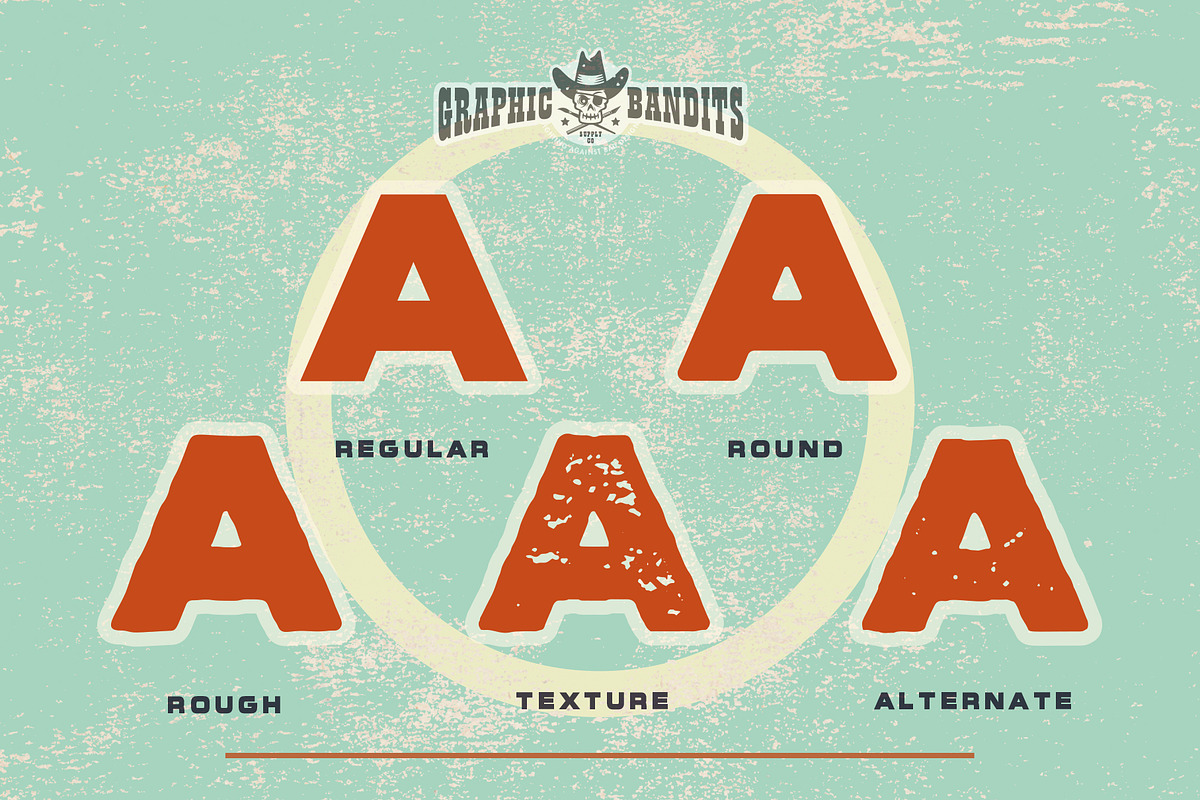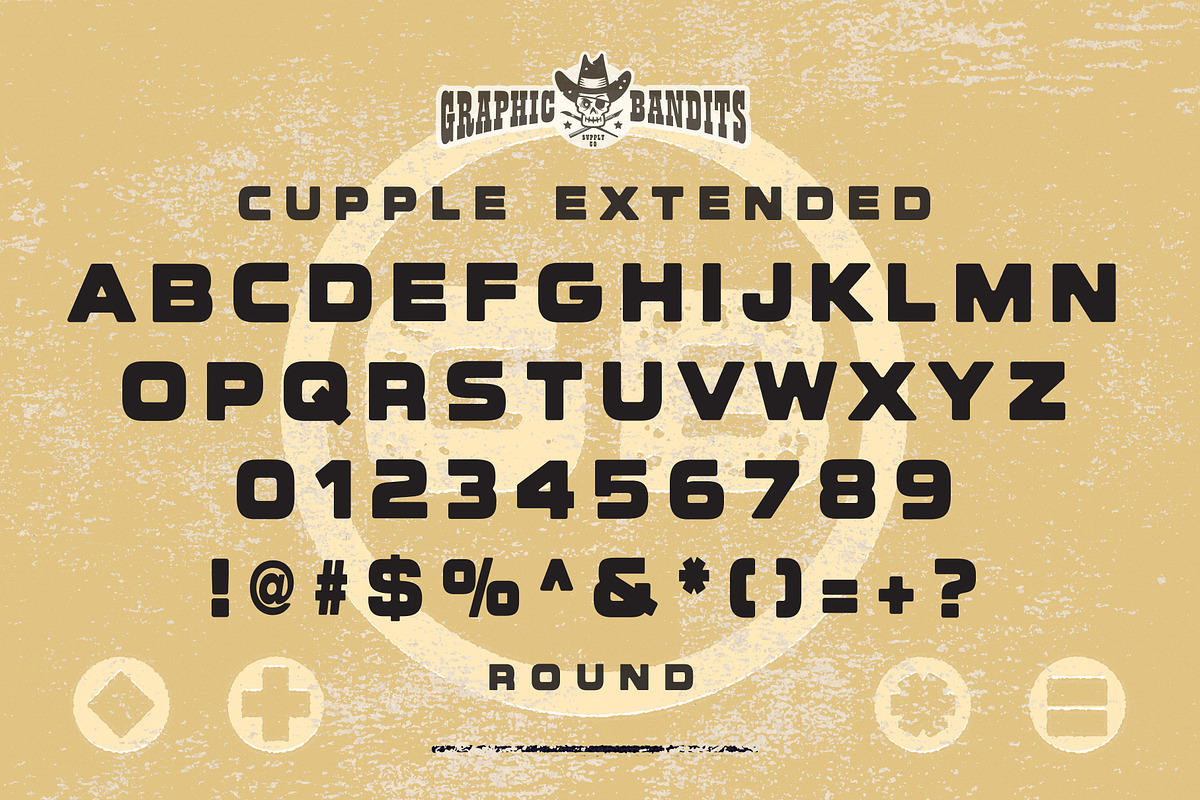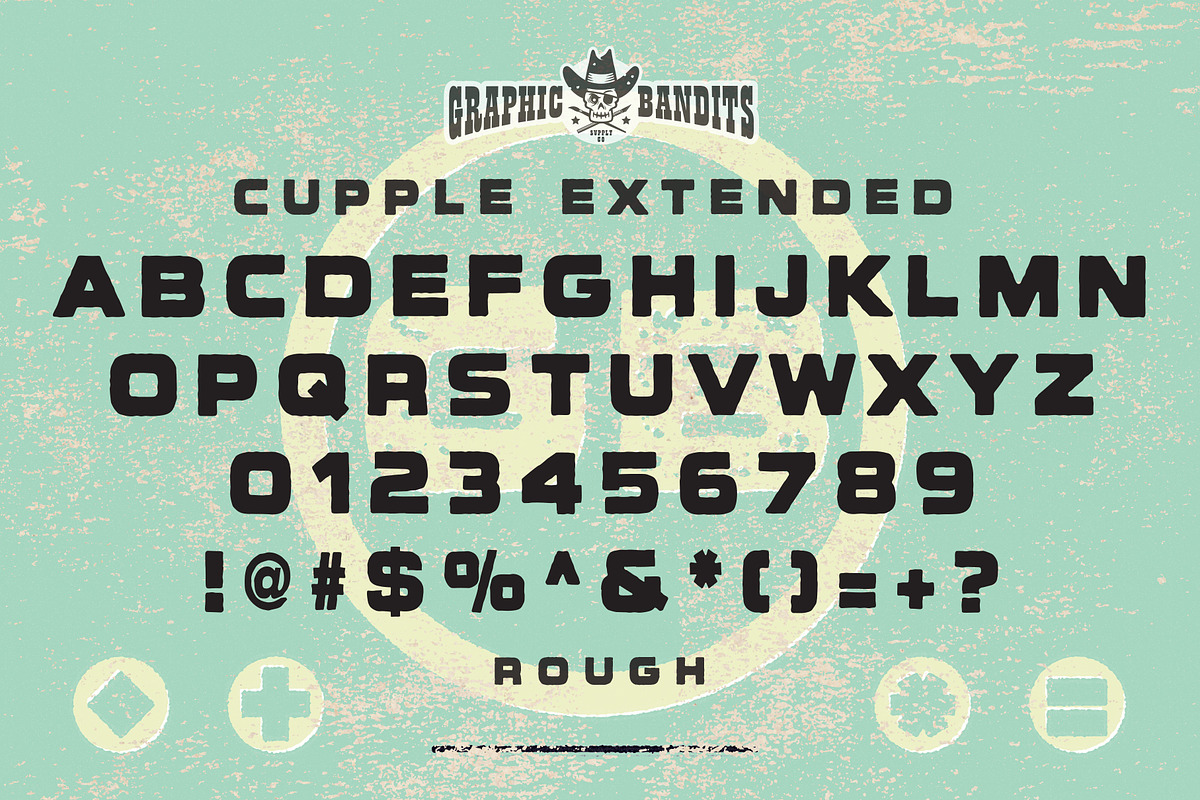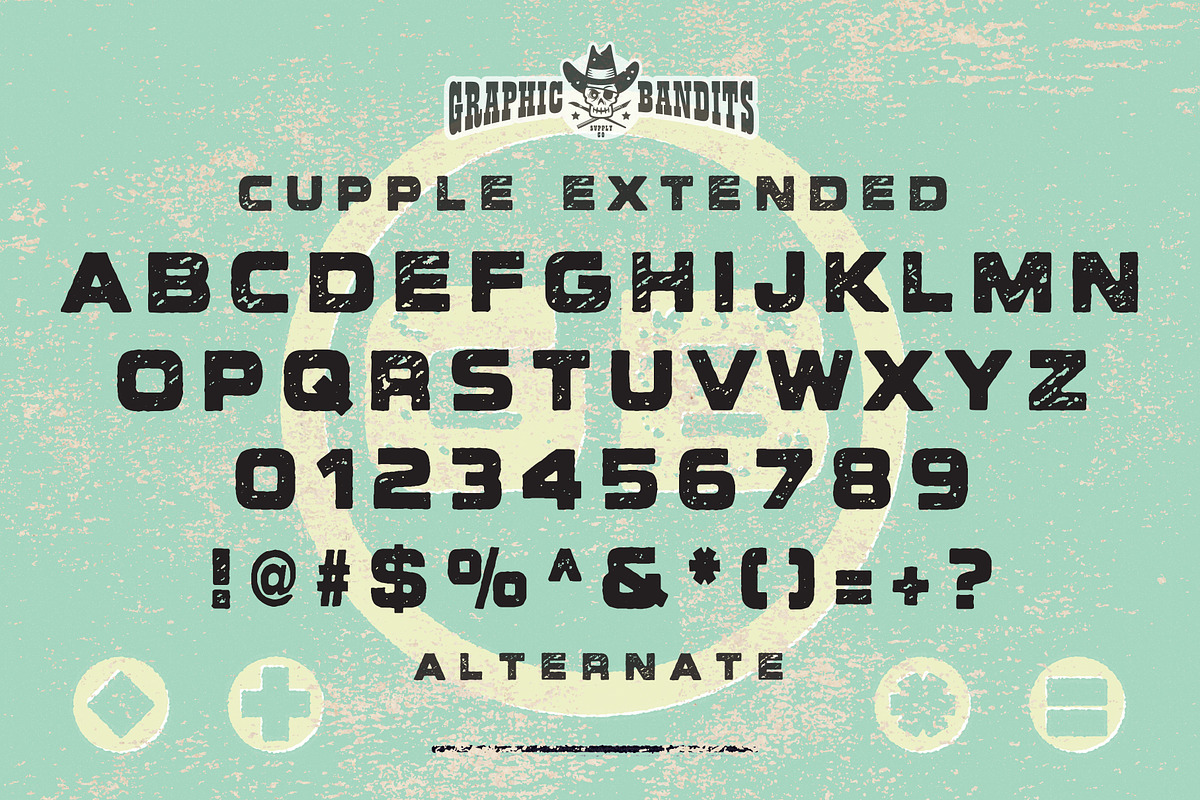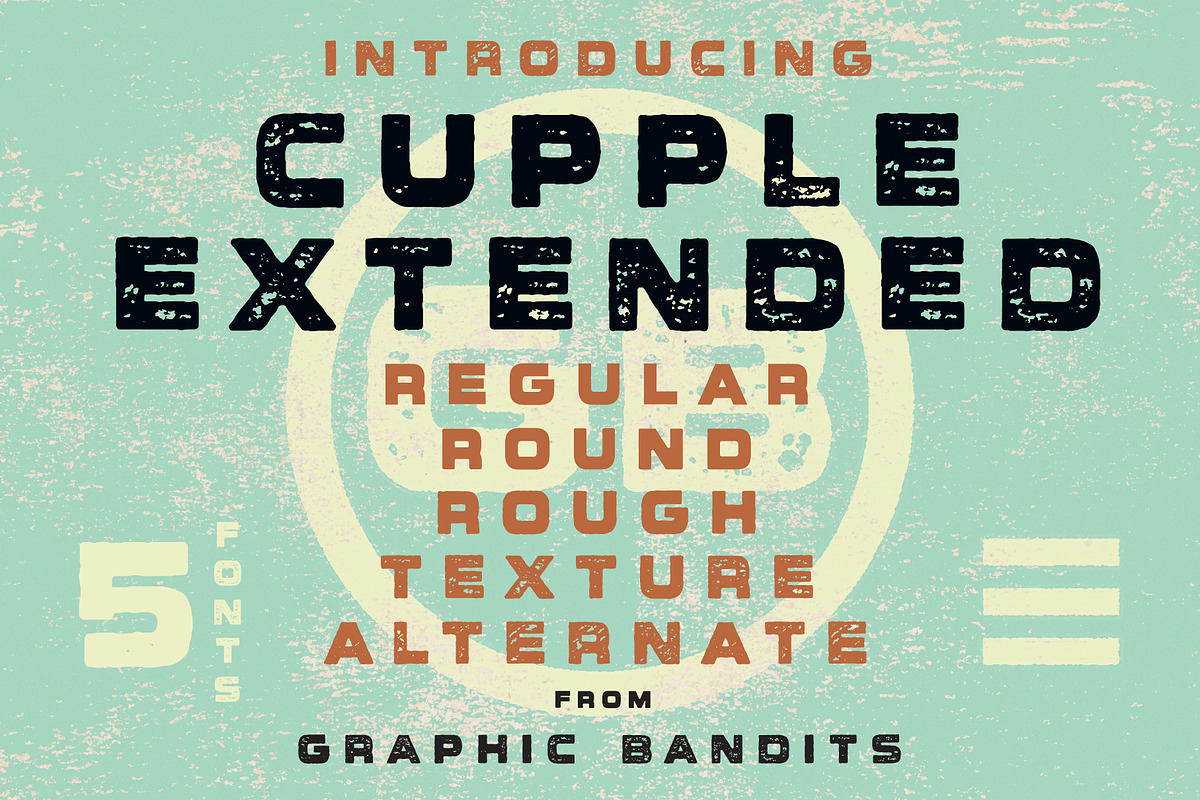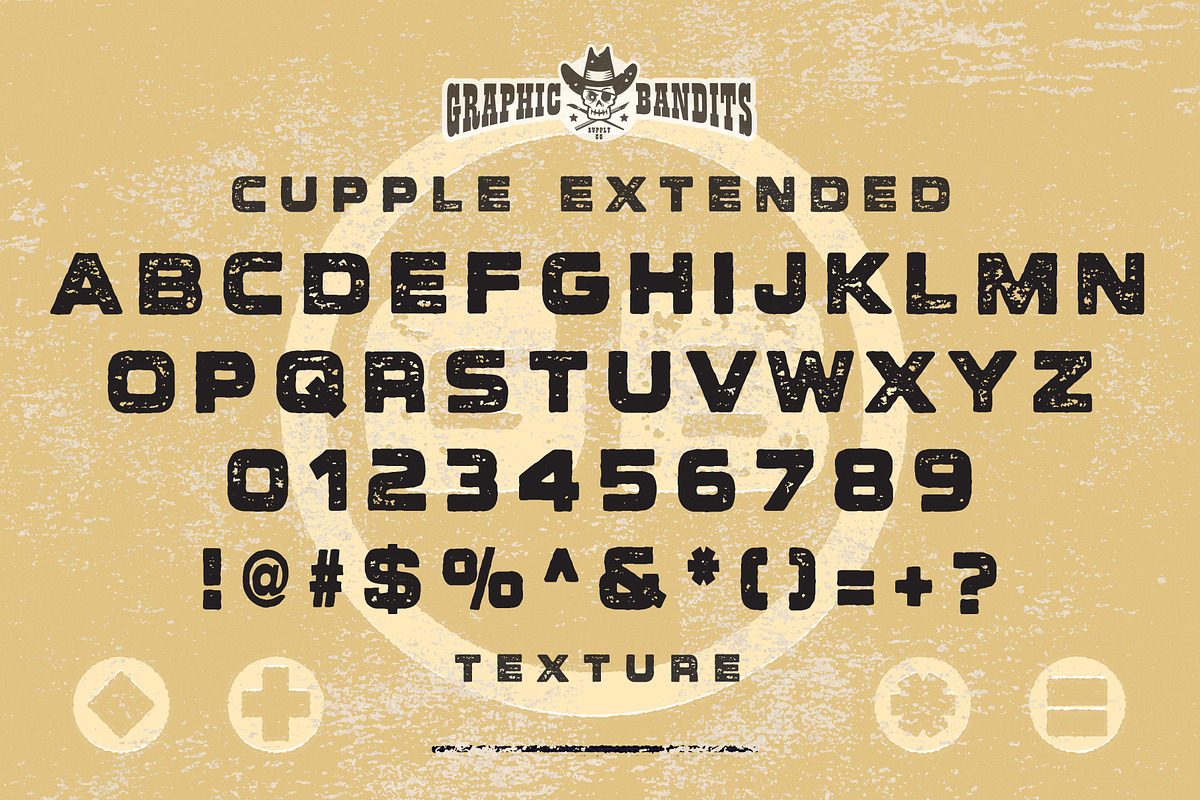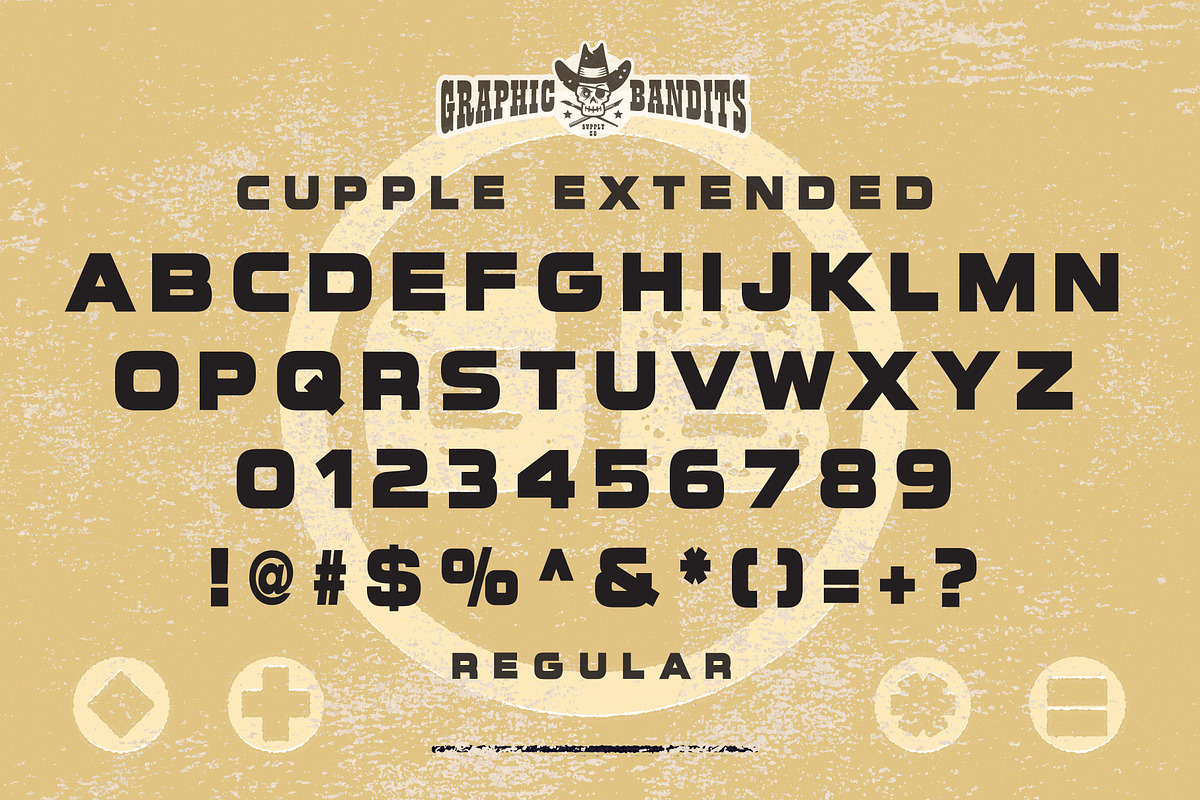
Cupple Extended 5 Font Family
The inspiration for this typeface came from a vintage label for Fruit Jar Rings. This is a very versatile font family. It can be used in vintage or contemporary designs. Works great on posters, signage, shirts, or any design project that calls for a bold extended font!
- Cupple Extend Regular
- Cupple Extend Rough
- Cupple Extend RoughAltTexture
- Cupple Extend RoughTexture
- Cupple Extend Round